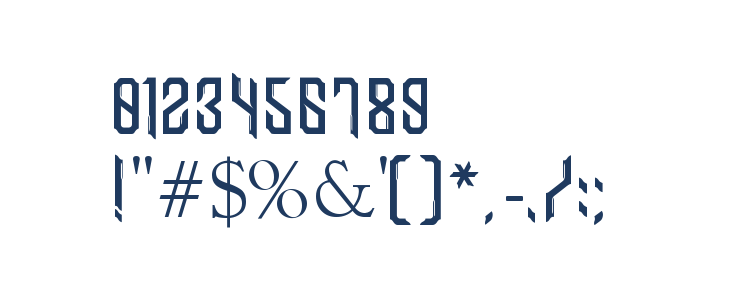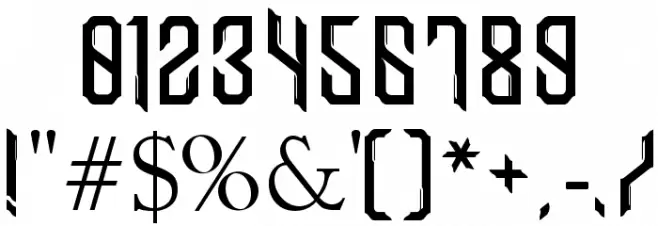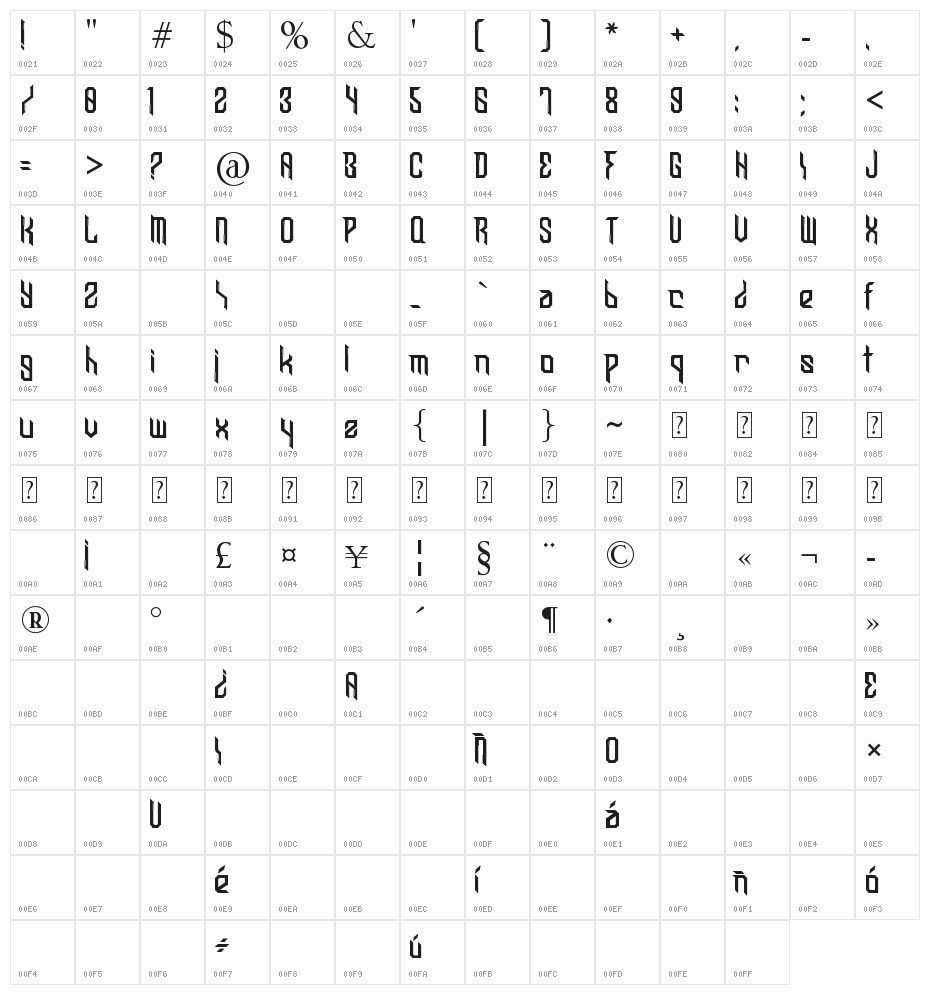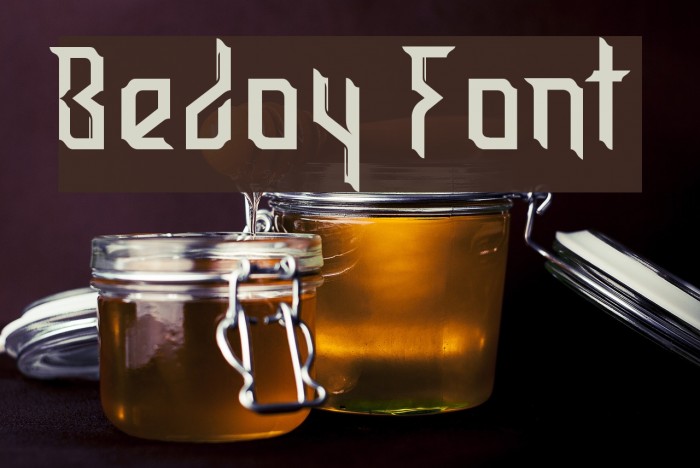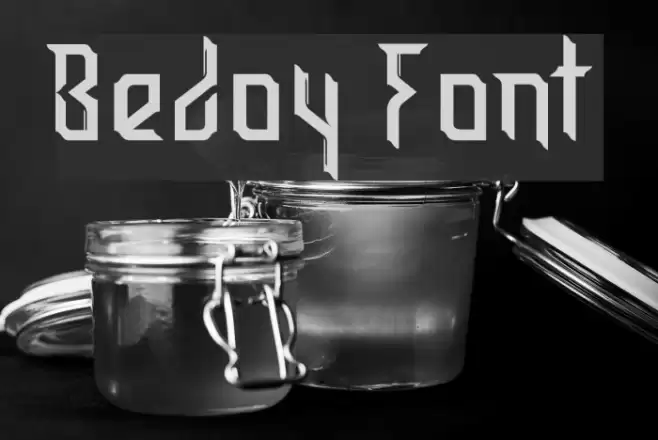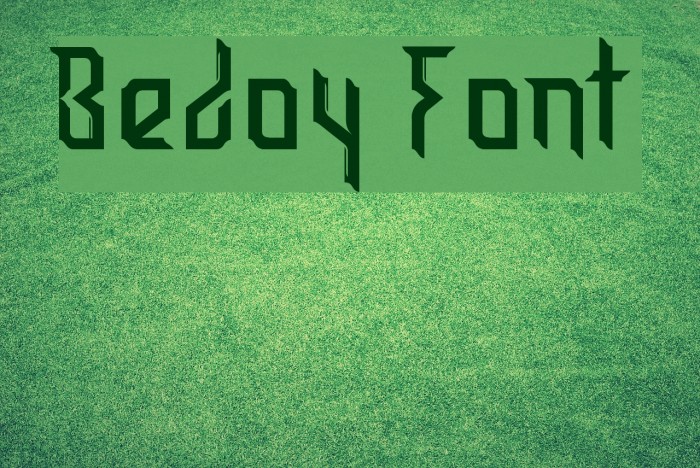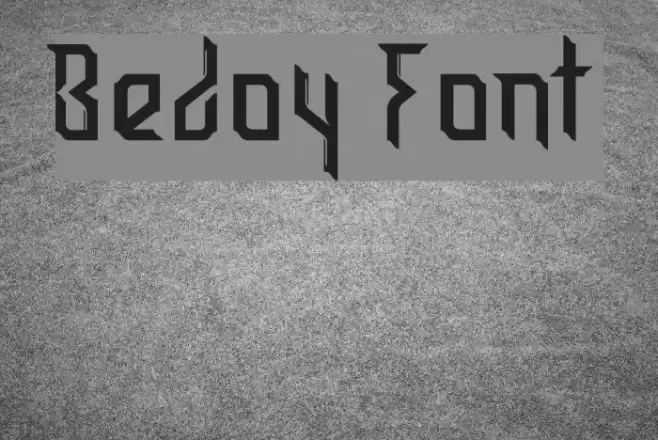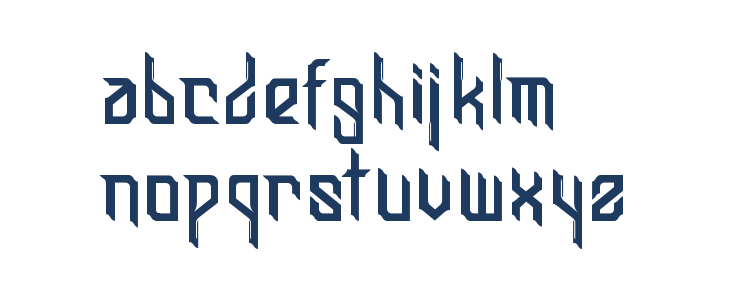
Bedoy Font
Bedoy Description
This font features a bold, angular design with a distinct geometric influence. The characters are sharply defined with a high contrast between thick and thin strokes, giving it a modern and edgy appearance. The uppercase letters are particularly striking, with a tall and narrow structure that adds a sense of height and drama. The lowercase letters maintain the same angular style, ensuring consistency across the typeface. Numbers and special characters are designed with the same attention to detail, making them stand out in any design. The overall style is reminiscent of futuristic or sci-fi themes, making it ideal for projects that require a bold and distinctive look.